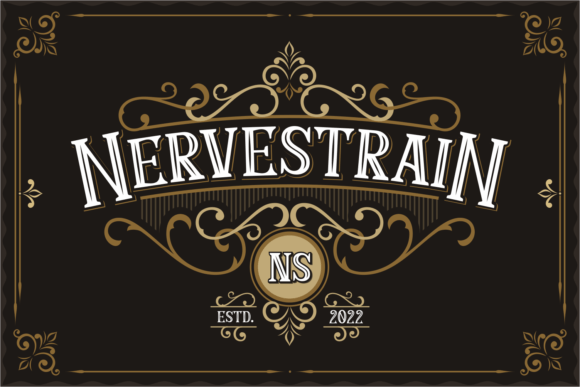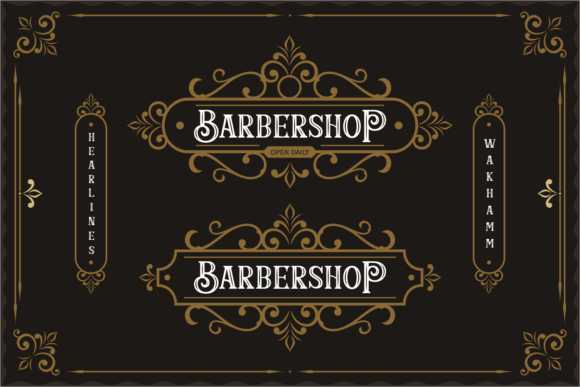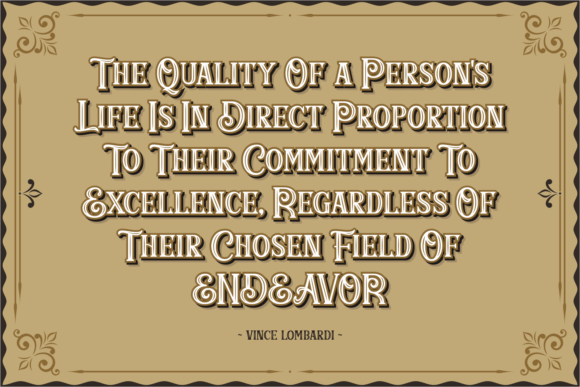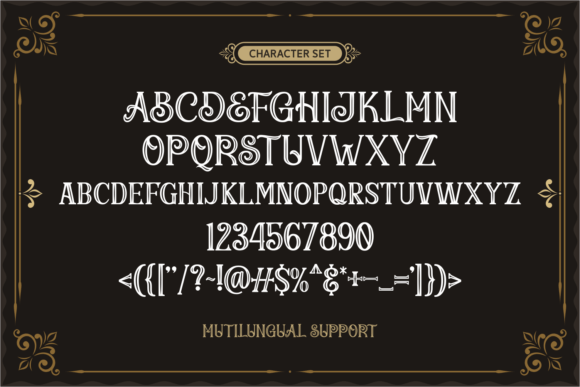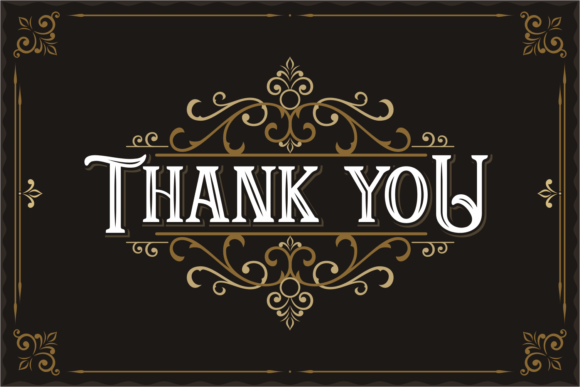
Hearlines Font: Elevate Your Designs with a Touch of Vintage Elegance
In the world of typography, fonts play a crucial role in setting the tone and aesthetic of a design project. For those seeking to infuse their creations with a sense of tradition, timelessness, and sophistication, the Hearlines font is an excellent choice. This beautiful typeface boasts a vintage appeal that can elevate a wide range of design projects, from elegant invitations and wedding stationery to branding materials and creative endeavors.
The Charm of Hearlines Font
Hearlines font is characterized by its classic and refined features, which make it an ideal selection for designers and crafters looking to add a touch of elegance to their work. The font’s vintage appeal is reminiscent of a bygone era, evoking feelings of nostalgia and sophistication. Its timeless quality ensures that it will remain a stylish choice for years to come, making it an excellent investment for those who value versatility and enduring style.
One of the standout qualities of the Hearlines font is its versatility. It can be used sparingly for headings or employed throughout a project to create a consistent vintage aesthetic. This flexibility makes it suitable for a wide range of design applications, including:
- Invitations and Wedding Stationery: Add a touch of elegance and refinement to your wedding invitations, save-the-date cards, and other stationery with the Hearlines font.
- Branding Materials: Use the Hearlines font to create a cohesive and sophisticated brand identity that exudes tradition and timelessness.
- Creative Projects: Whether you’re working on a craft project, a DIY endeavor, or a creative pursuit, the Hearlines font can add a touch of vintage charm and character.
Why Choose Hearlines Font?
There are several reasons why designers and crafters might choose the Hearlines font for their projects:
- Elegance and Refinement: The Hearlines font brings a level of sophistication and elegance to any design, making it perfect for projects that require a touch of luxury.
- Timeless Appeal: The font’s vintage appeal ensures that it will remain stylish for years to come, making it a great investment for designers and crafters.
- Versatility: The Hearlines font can be used in a variety of design applications, from headings and titles to body text and more.
Tips for Using Hearlines Font
To get the most out of the Hearlines font, consider the following tips:
- Pair with Modern Fonts: Combine the Hearlines font with modern fonts to create a striking contrast and add visual interest to your design.
- Experiment with Colors: Try pairing the Hearlines font with different colors to create a unique and eye-catching effect.
- Use for Headings: Use the Hearlines font for headings and titles to add a touch of elegance and sophistication to your design.
In conclusion, the Hearlines font is a beautiful and versatile typeface that can add a touch of vintage elegance to a wide range of design projects. Its timeless appeal, elegance, and refinement make it an excellent choice for designers and crafters seeking to create sophisticated and stylish designs. Whether used sparingly or throughout a project, the Hearlines font is sure to bring a level of sophistication and charm to any composition.